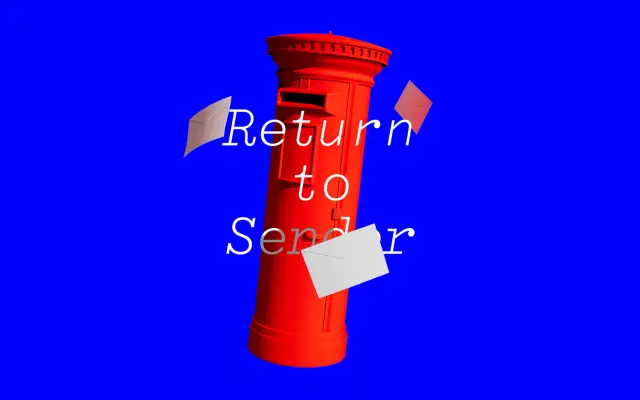
F37 Britain Typewriter
The typewriter slab within the F37 Britain collection, six weights deep from ExtraLight to Bold with matching italics.
A typewriter style slab that closes out the F37 Britain collection. Twelve styles span six weights from ExtraLight to Bold with matching italics, giving it enough range for body text and headline use. Reads as a contemporary reworking of British typewriter type, useful when you want a slab with a mechanical, documentary feel rather than a Clarendon flourish.
F37 classify F37 Britain Typewriter as the typewriter cut within the F37 Britain collection. It carries the mechanical, slabby skeleton of mid-century British typewriters but is drawn proportionally rather than as a fixed-width.